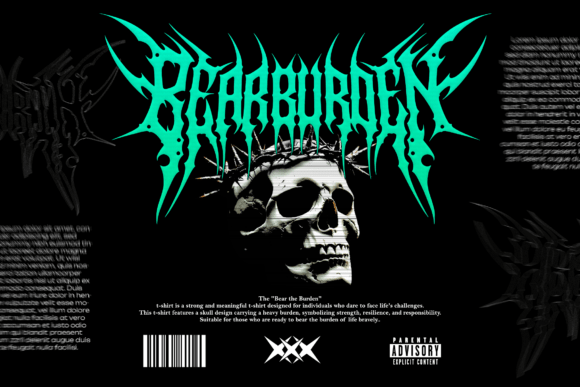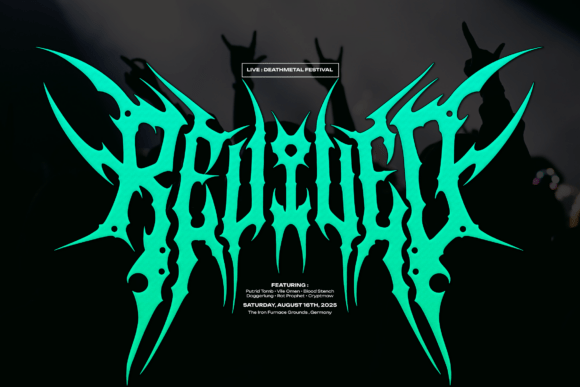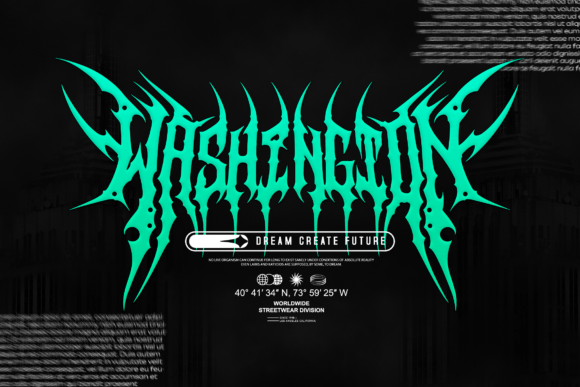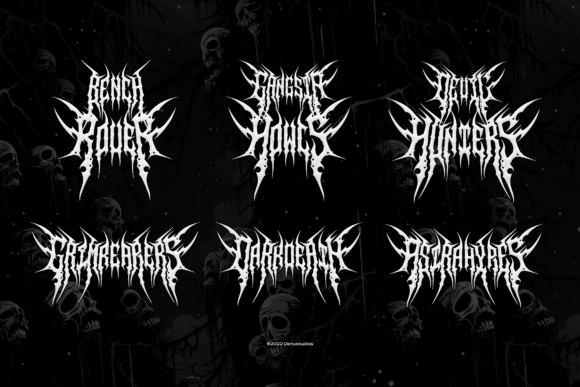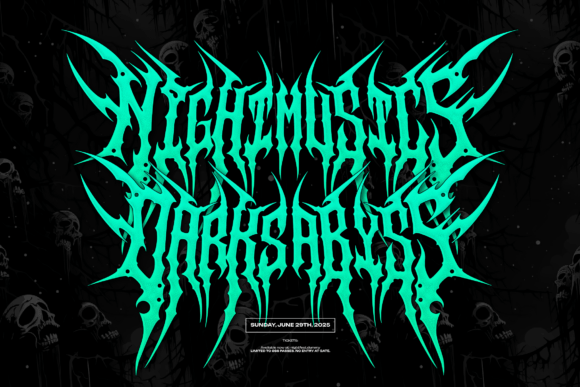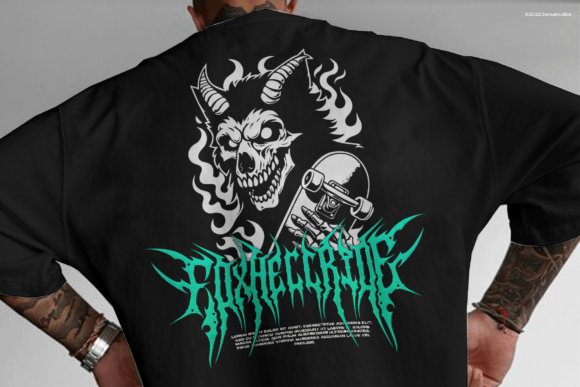
Unleash the Fury: Discover the Darkpulse Font for Your Darkest Creations
In the realm of typography, few fonts evoke the same level of intensity and aggression as the Darkpulse font. Designed for those who dare to push the boundaries of creativity, Darkpulse is a fierce and chaotic black metal font that commands attention with its aggressive spikes, razor-sharp serifs, and brutal aesthetic. Whether you’re a designer, artist, or crafty enthusiast, this font is perfect for unleashing your darkest creative visions.
The Darkpulse Difference: A Font that Packs a Punch
Darkpulse is more than just a font – it’s an experience. Its bold, rugged design is inspired by the raw energy and rebellious spirit of black metal music. With its jagged edges and menacing appearance, this font is guaranteed to make a statement. Whether you’re creating band logos, horror artwork, underground music promotions, or heavy metal merchandise, Darkpulse is the perfect tool to add an edge to your designs.
5 Unique Alternate Styles to Match Your Darkest Visions
One of the standout features of Darkpulse is its versatility. The font comes with 5 unique alternate styles, each designed to evoke a different level of intensity and chaos. Whether you’re looking for a font that’s aggressive and in-your-face or dark and mysterious, Darkpulse has got you covered. These alternate styles allow you to experiment with different looks and find the perfect fit for your creative project.
Darkpulse is a font that’s been designed with designers and crafters in mind. Its rugged, distressed look makes it perfect for a wide range of applications, from band logos and posters to t-shirt designs and social media graphics. The font’s bold, attention-grabbing design ensures that your message will be heard loud and clear, even in the most crowded and competitive of spaces.
Applications for Darkpulse: Where to Use this Fierce Font
So, where can you use the Darkpulse font? The possibilities are endless, but here are a few ideas to get you started:
- Band logos and merchandise: Darkpulse is perfect for creating bold, eye-catching logos and merchandise for black metal bands and other heavy music acts.
- Horror artwork and graphics: The font’s dark, menacing appearance makes it ideal for horror-themed artwork, including movie posters, album covers, and social media graphics.
- Underground music promotions: Whether you’re promoting a concert, festival, or music event, Darkpulse is the perfect font to grab attention and create a buzz.
- Heavy metal merchandise: From t-shirts and hoodies to patches and stickers, Darkpulse is the perfect font for creating bold, eye-catching merchandise for heavy metal fans.
Tips for Using Darkpulse Effectively
To get the most out of the Darkpulse font, here are a few tips to keep in mind:
- Use it sparingly: Due to its bold, attention-grabbing design, it’s best to use Darkpulse sparingly. A little goes a long way, and overusing the font can dilute its impact.
- Experiment with different styles: Don’t be afraid to try out different alternate styles to find the one that works best for your project.
- Pair it with contrasting fonts: To create visual interest, try pairing Darkpulse with contrasting fonts that are clean, simple, and easy to read.
In conclusion, the Darkpulse font is a powerful tool for designers and crafters who want to add an edge to their creations. With its aggressive spikes, razor-sharp serifs, and brutal aesthetic, this font is perfect for anyone looking to make a statement. Whether you’re creating band logos, horror artwork, or heavy metal merchandise, Darkpulse is the perfect choice. So why wait? Unleash the fury and discover the Darkpulse font for yourself.